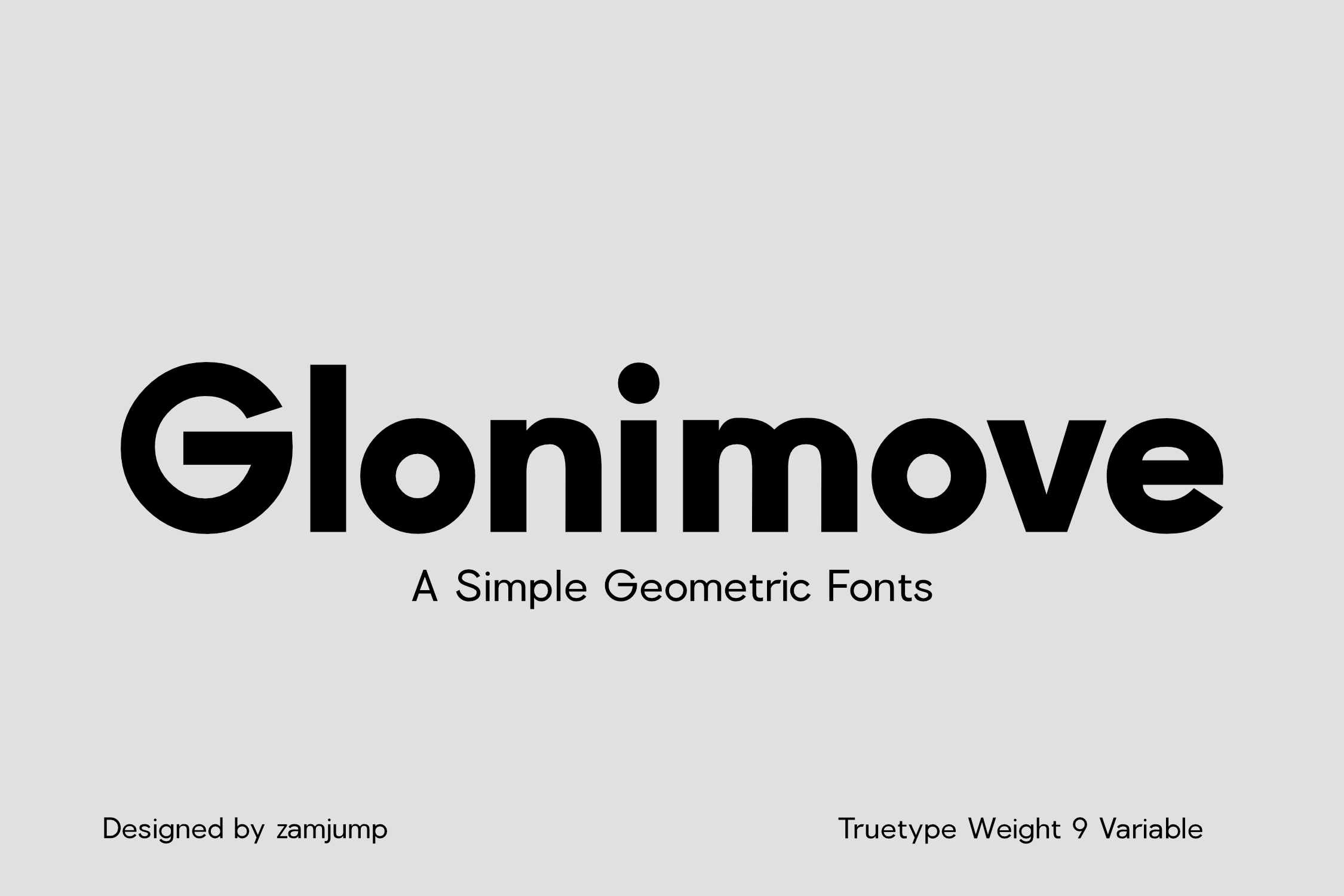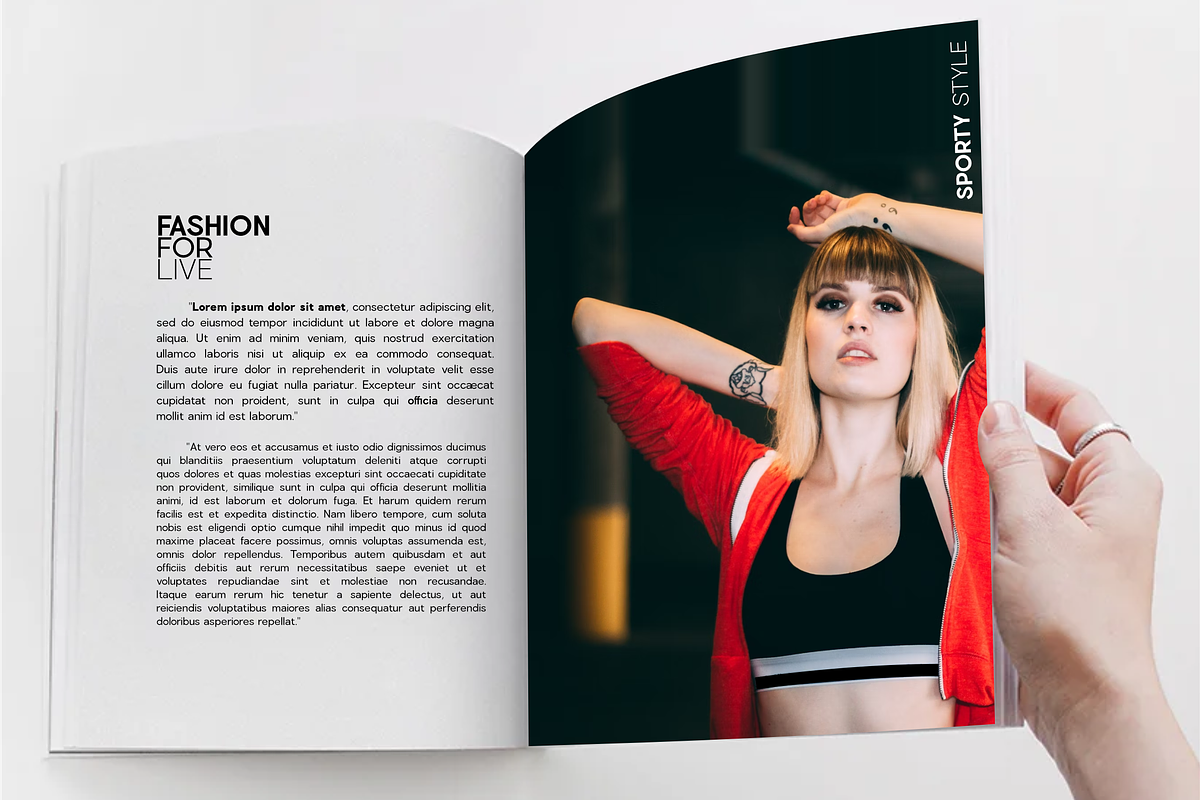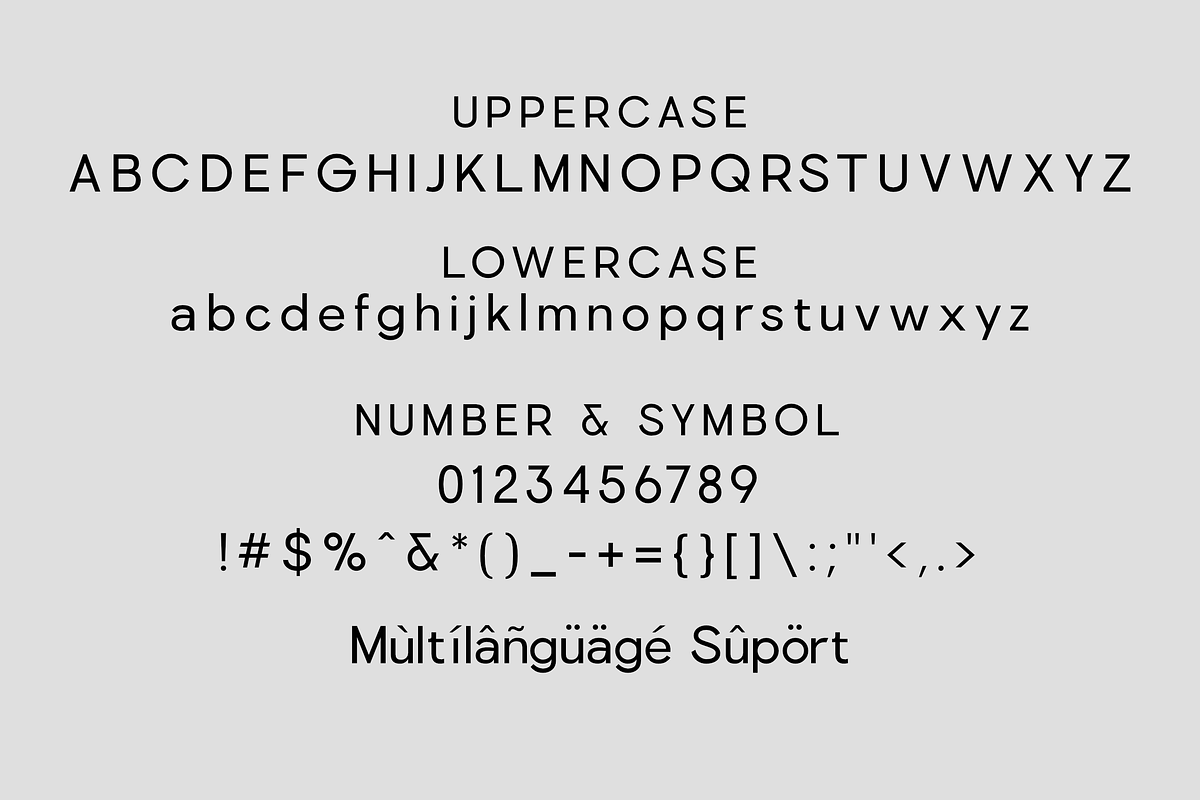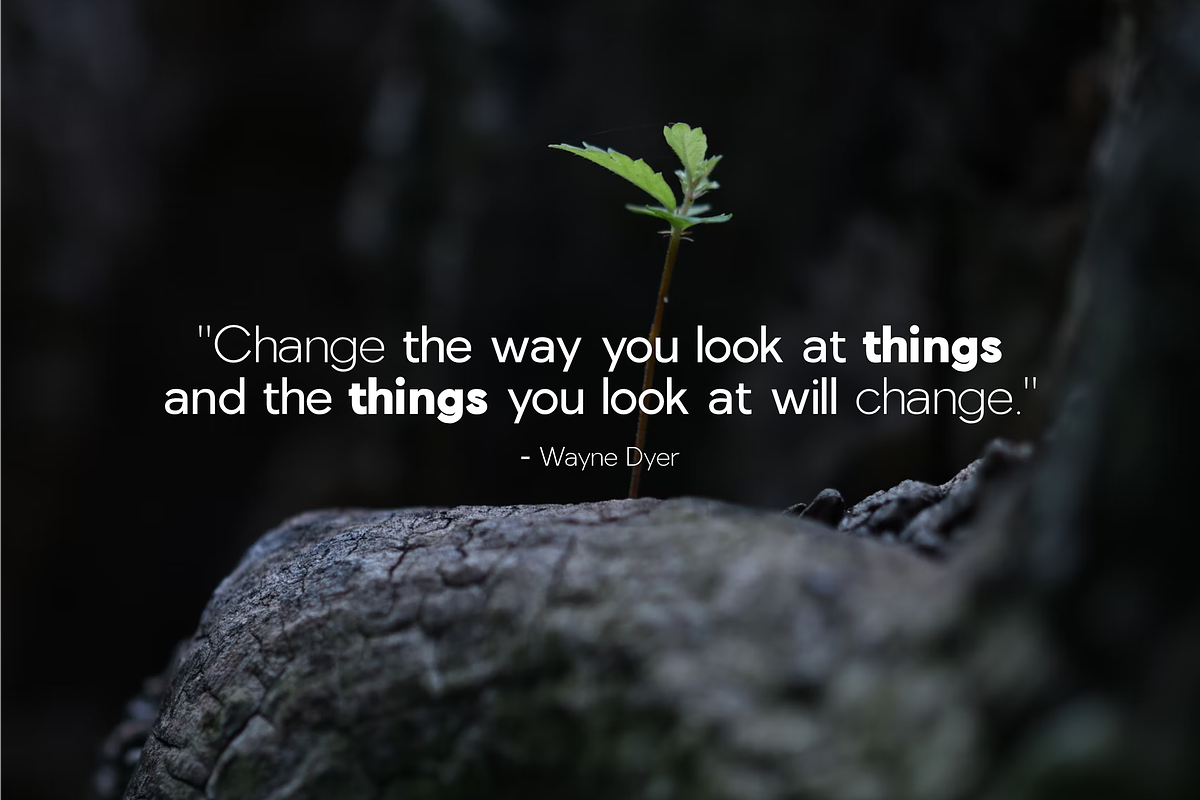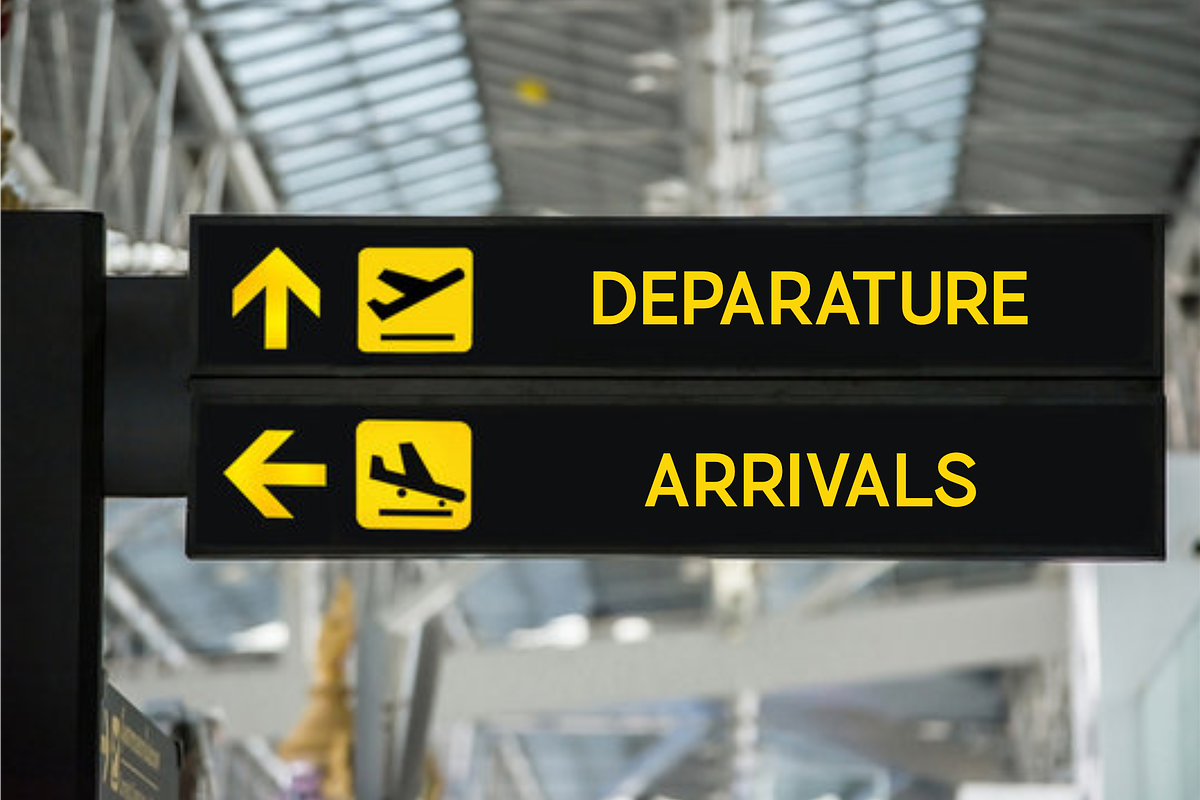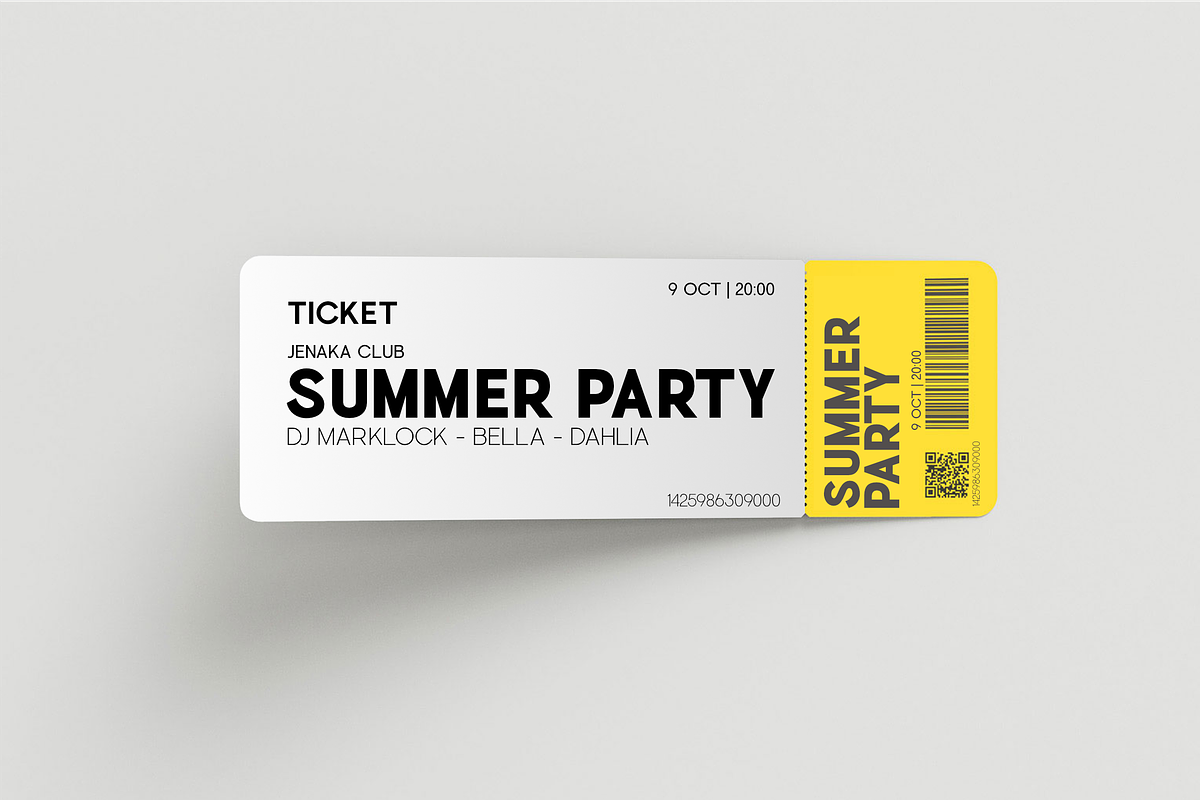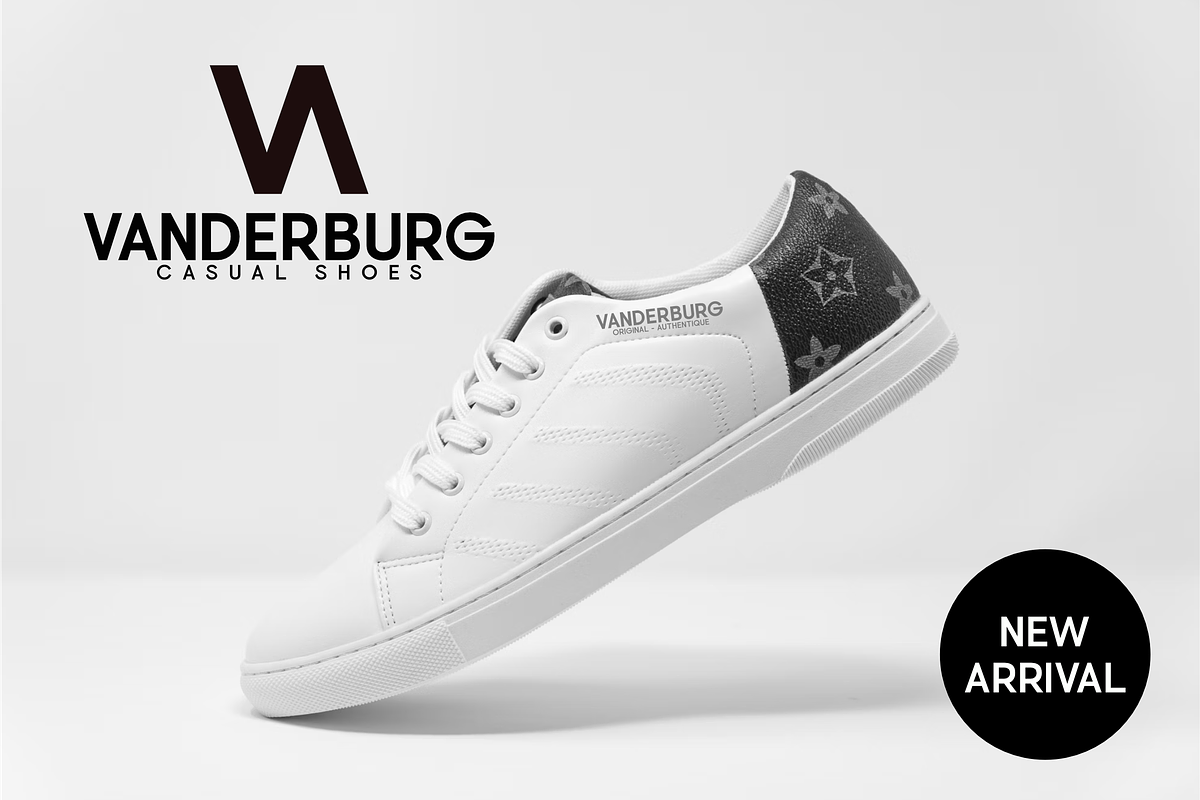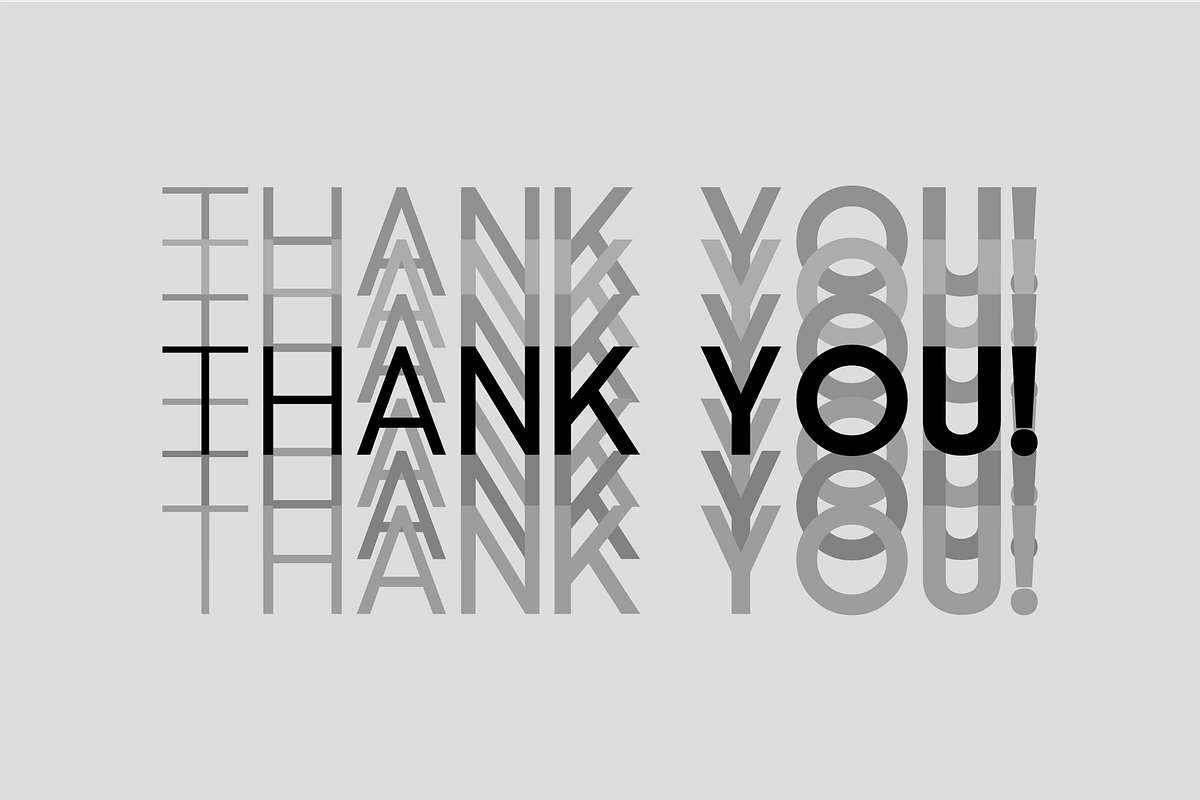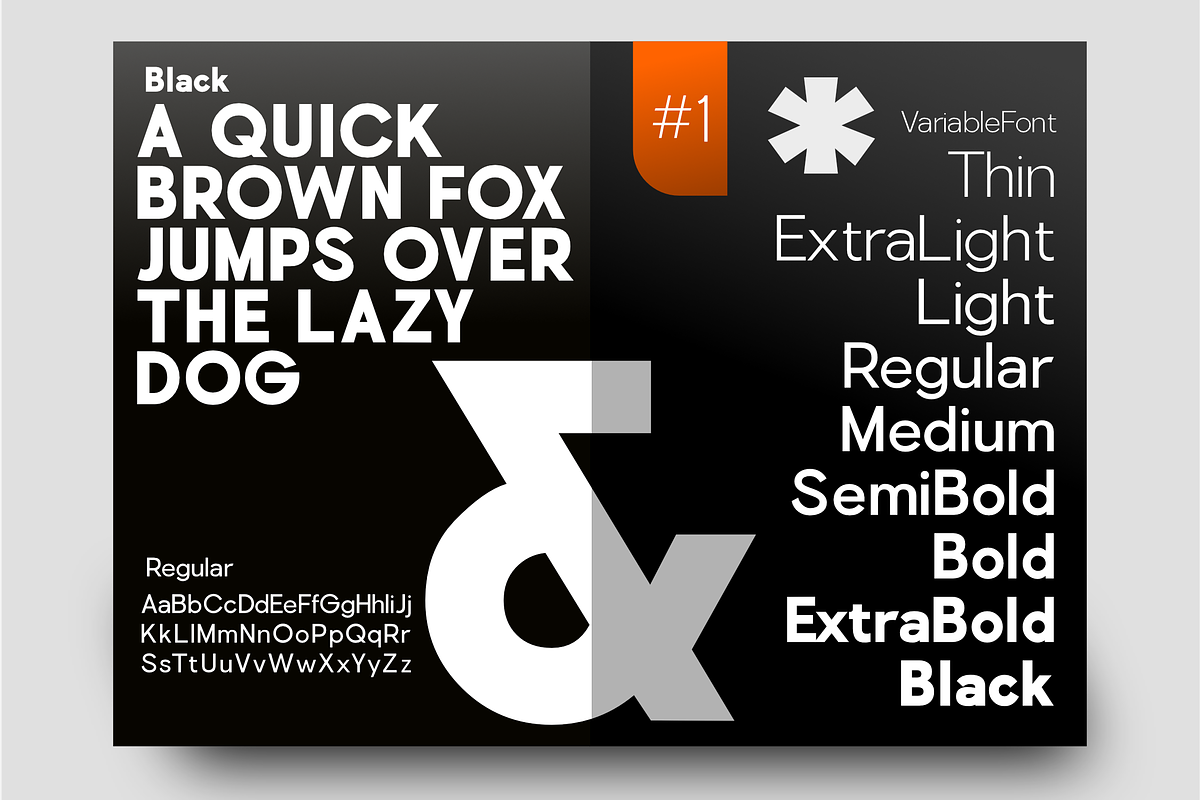
Glonimove - A simple Geometric Font
Glonimove is a cutting-edge geometric font that combines simplicity with sophistication. With 9 variable weights ranging from Thin to Black. Glonimove offers exceptional versatility and precision, making it the perfect choice for any design project. Unlike other geometric fonts. Glonimove stands out with its distinctive and clean lines, ensuring that it adds a modern touch to any application. Whether you’re working on branding, sales materials, signage, quotes, or print designs. Included : OTF, TTF, WOFF/WOFF2 FILE FORMAT Uppercase, Lowercase, Numbering, Simbol, Multilanguage Featured : Thin, Extra Light, Light, Regular, Medium, Semi Bold, Bold, Extra Bold, Black